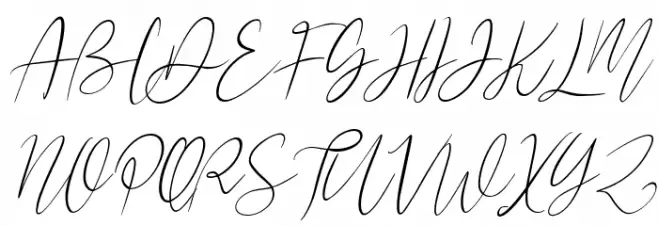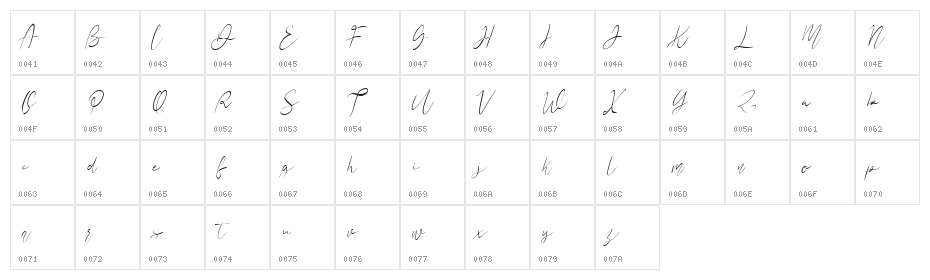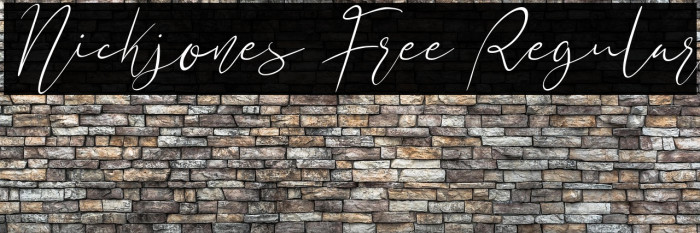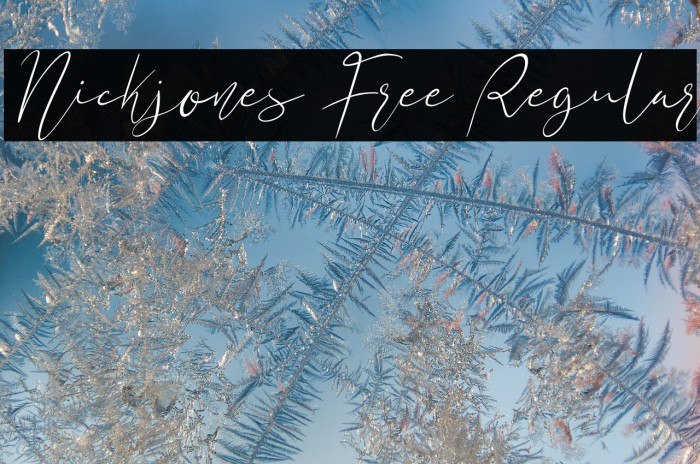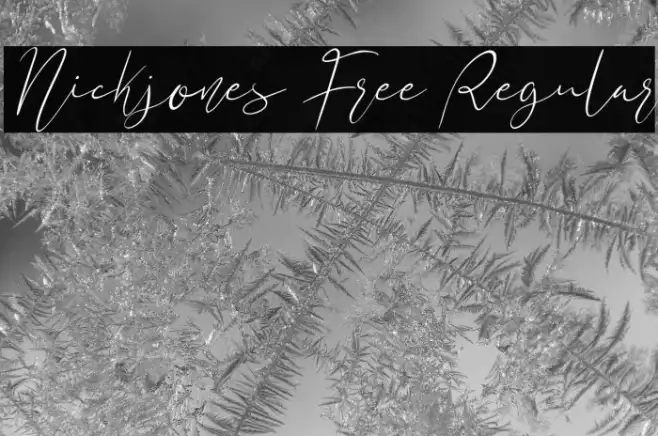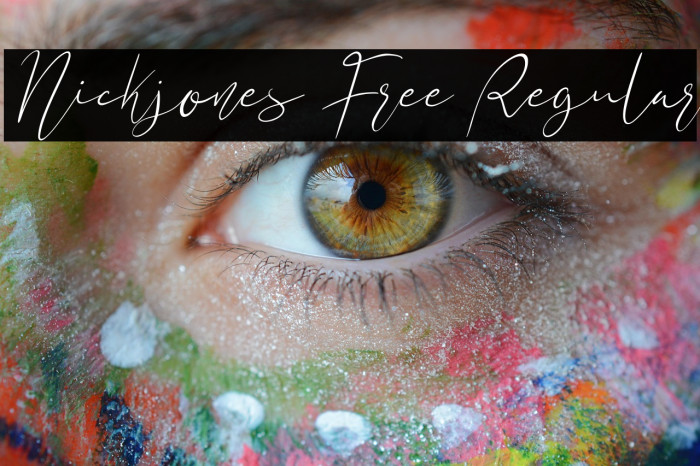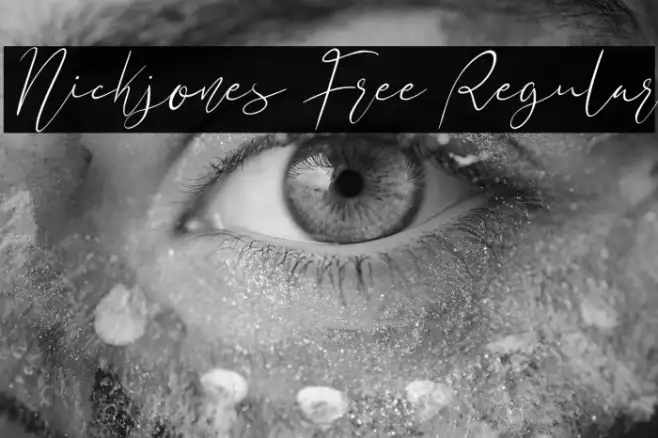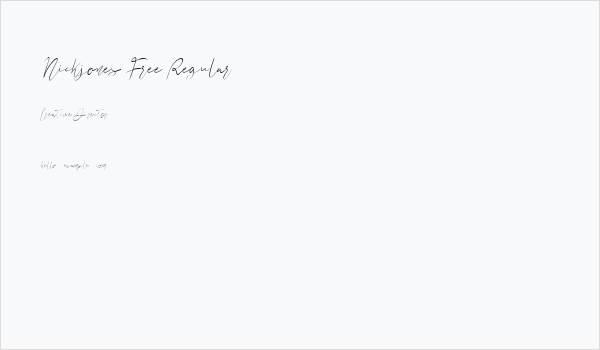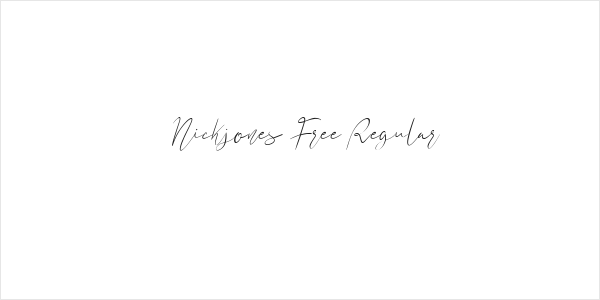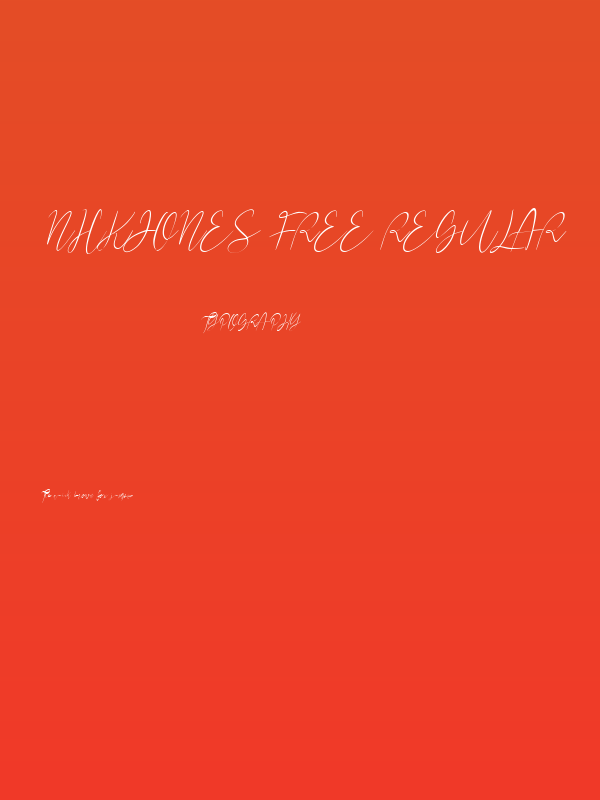
Nickjones Free Regular Font
Nickjones Free Regular Description
This font exudes a sense of elegance and fluidity, characterized by its cursive, handwritten style. The letters are connected with smooth, flowing strokes, giving it a sophisticated and artistic appearance. The uppercase and lowercase letters maintain a consistent style, with elongated ascenders and descenders that add to its graceful look. The numbers and special characters are designed to match the overall aesthetic, ensuring a cohesive appearance across all text. This font is ideal for projects that require a personal touch, such as invitations, greeting cards, and branding materials.
| Overall Style | Elegant, Artistic |
| Use Case | Headlines, Invitations, Artistic projects |
| Proposed Projects | Ideal for wedding invitations, personal branding, greeting cards, and artistic projects. |